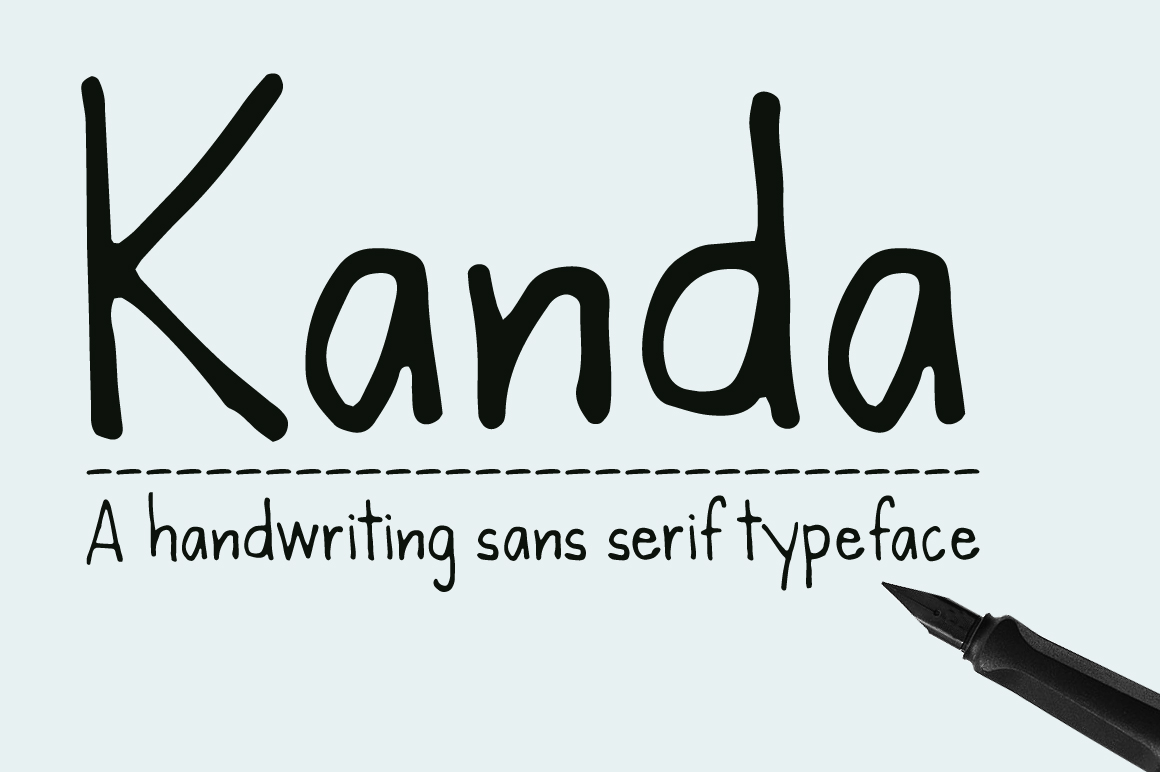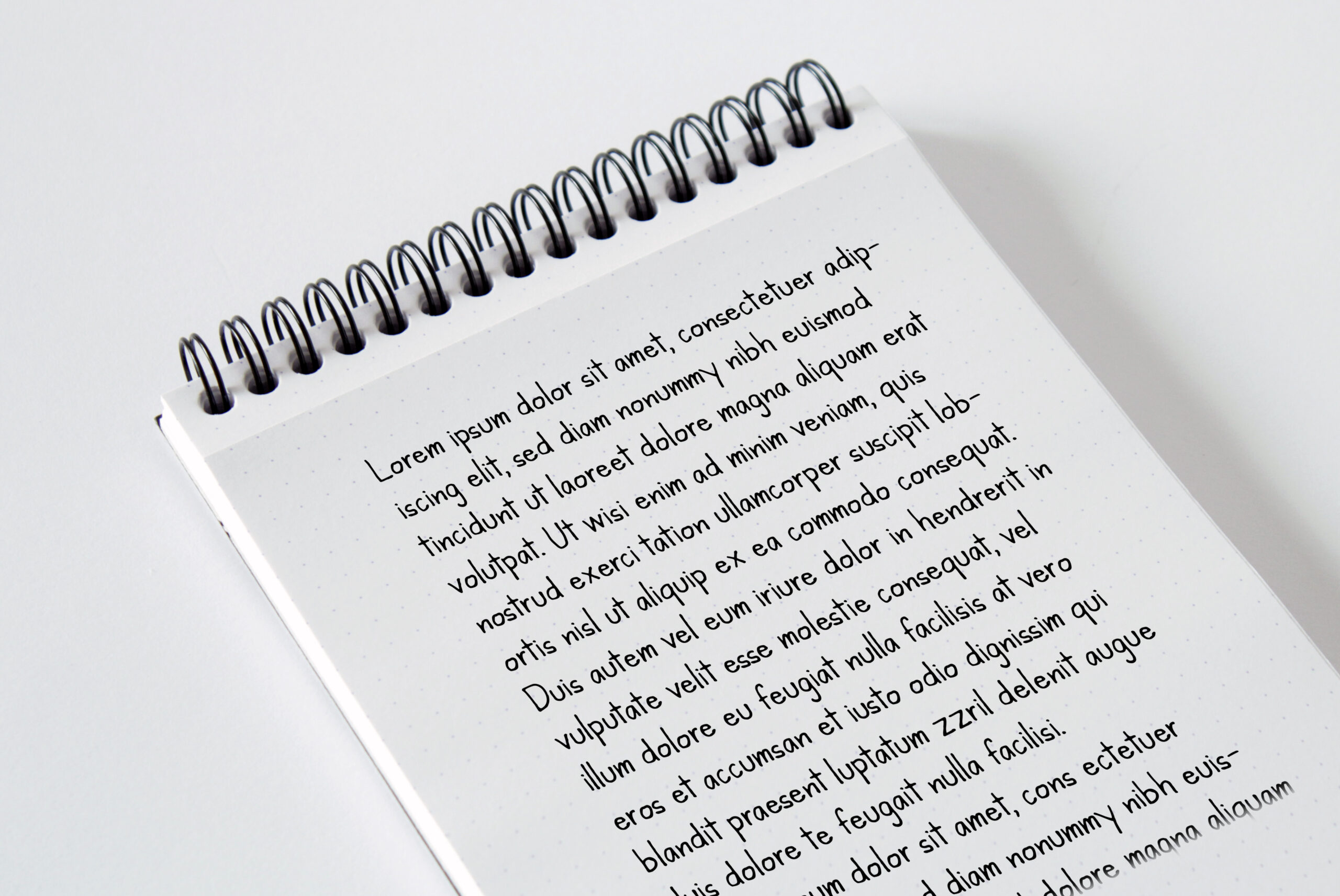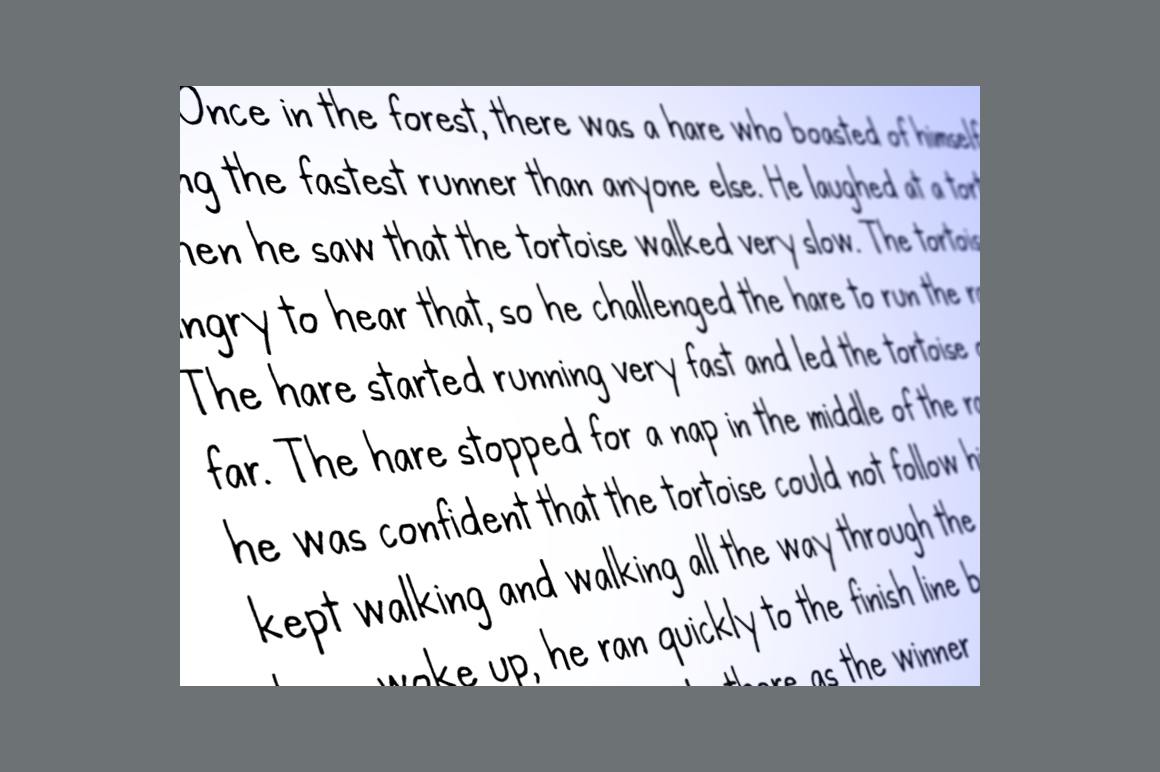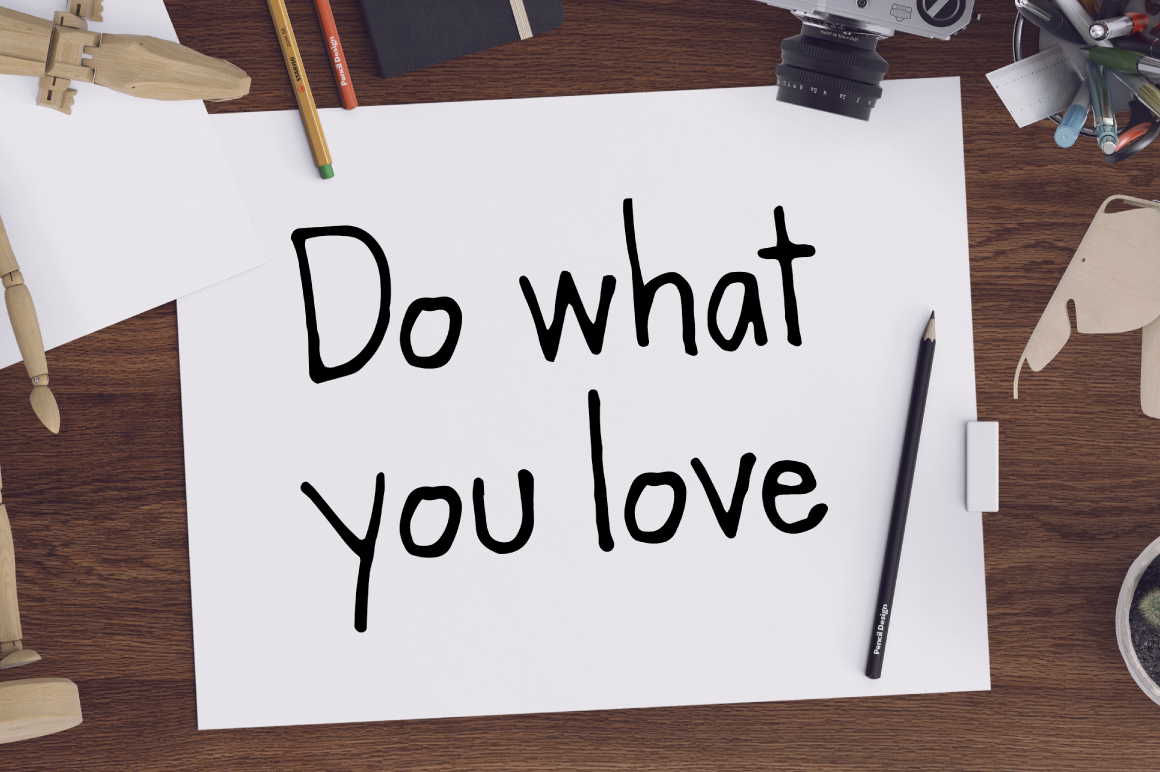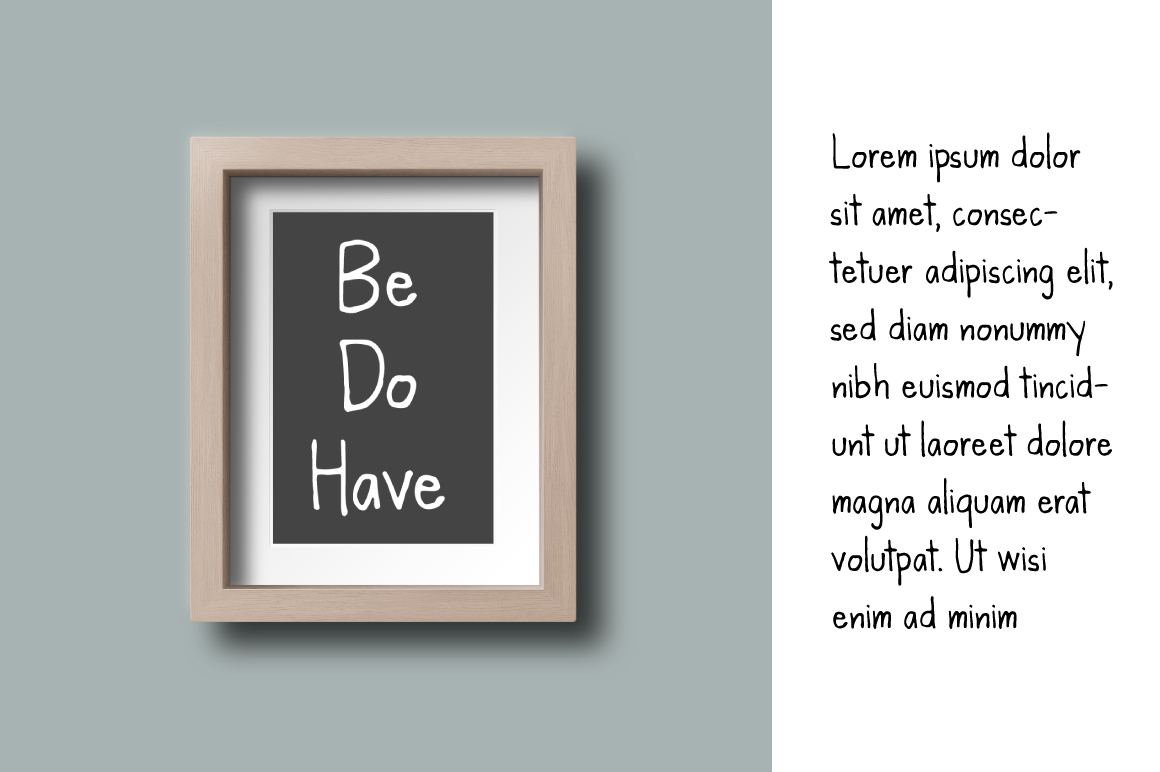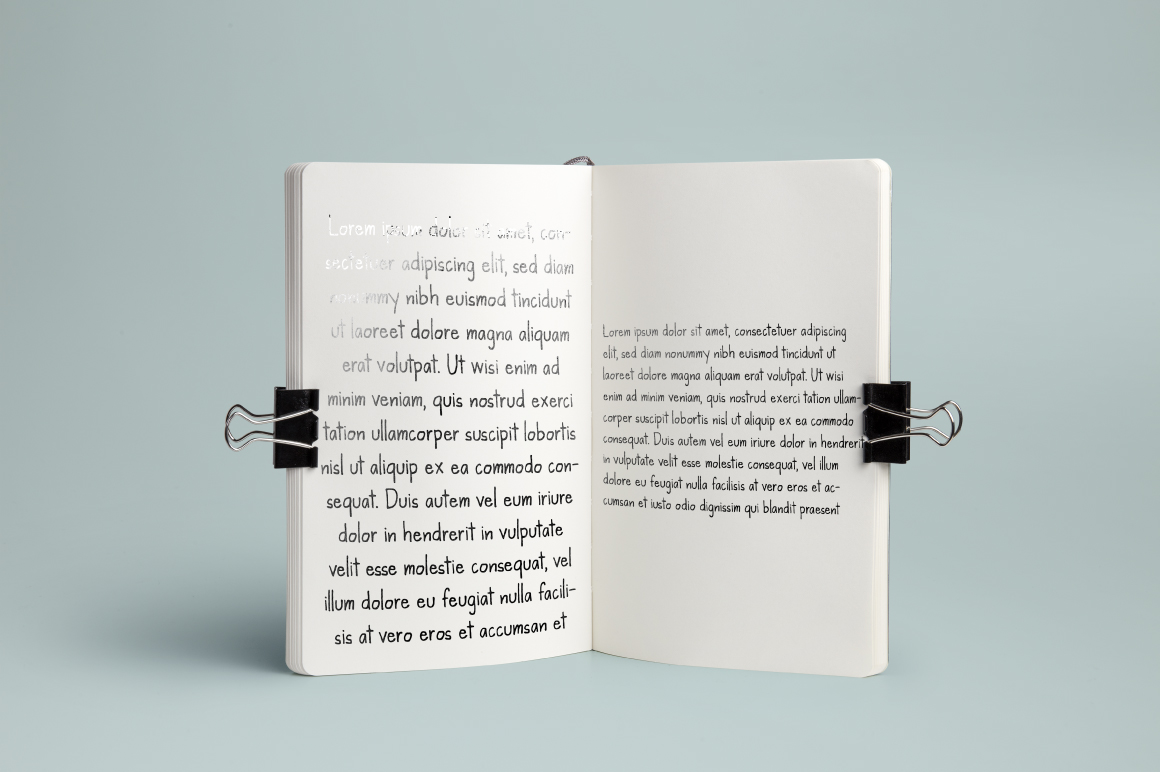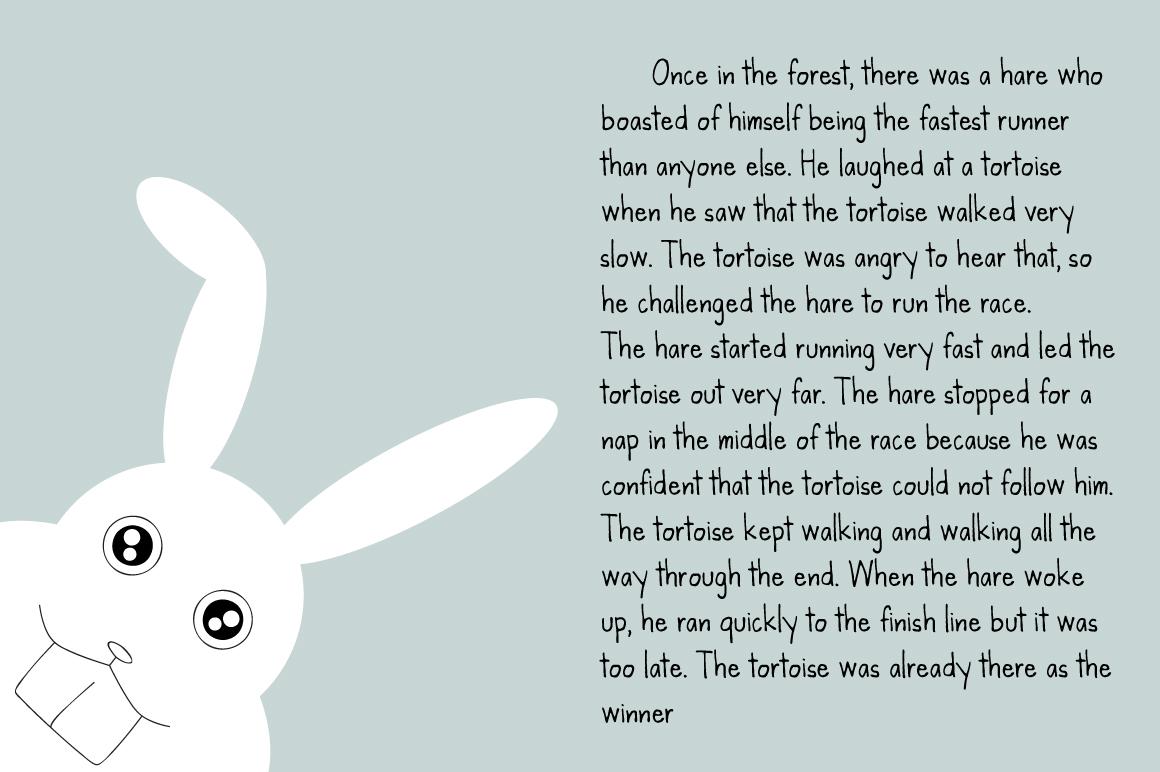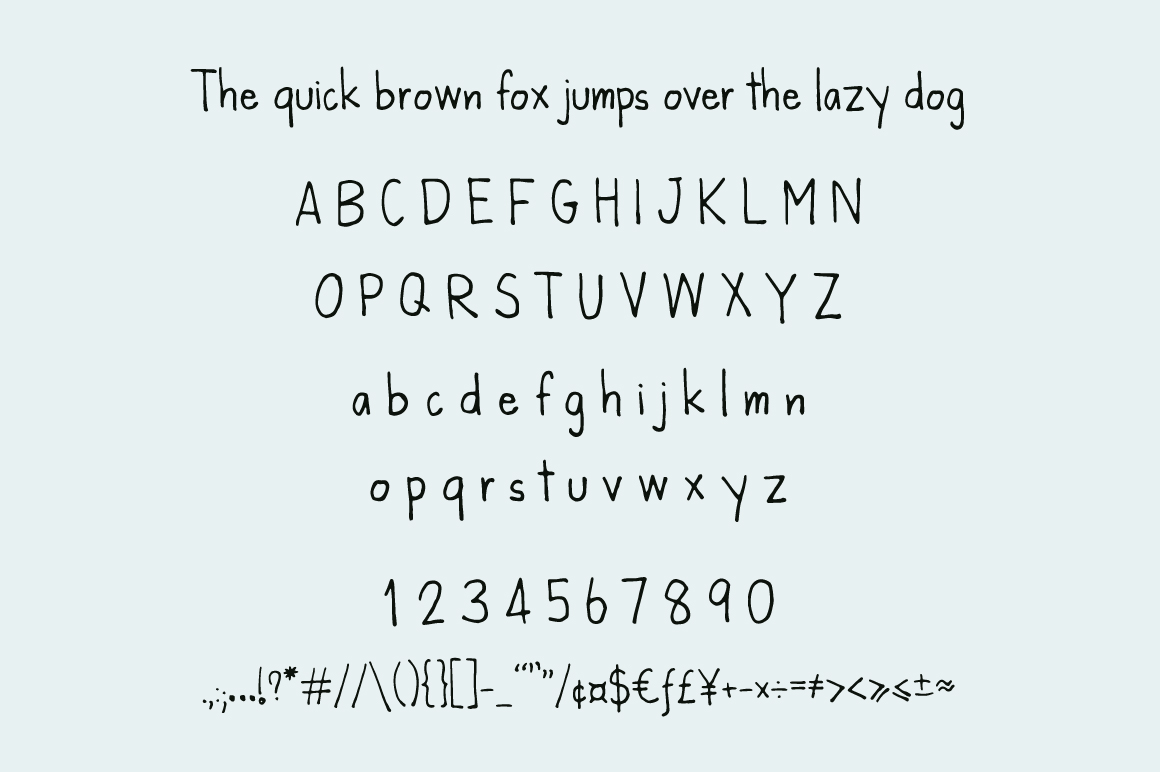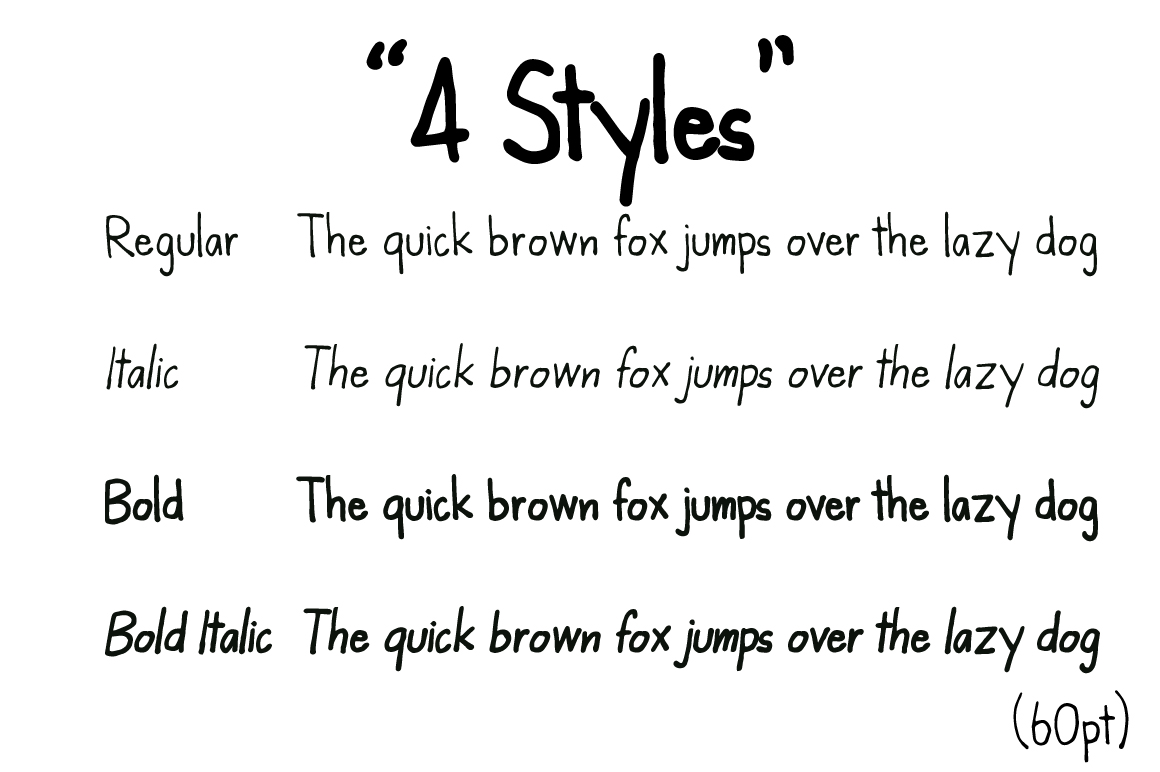
Kanda Font
About Kanda Font
Kanda is a sans serif handwritten font created with a fountain pen. It gives off a relaxed, friendly vibe and is easy to read.